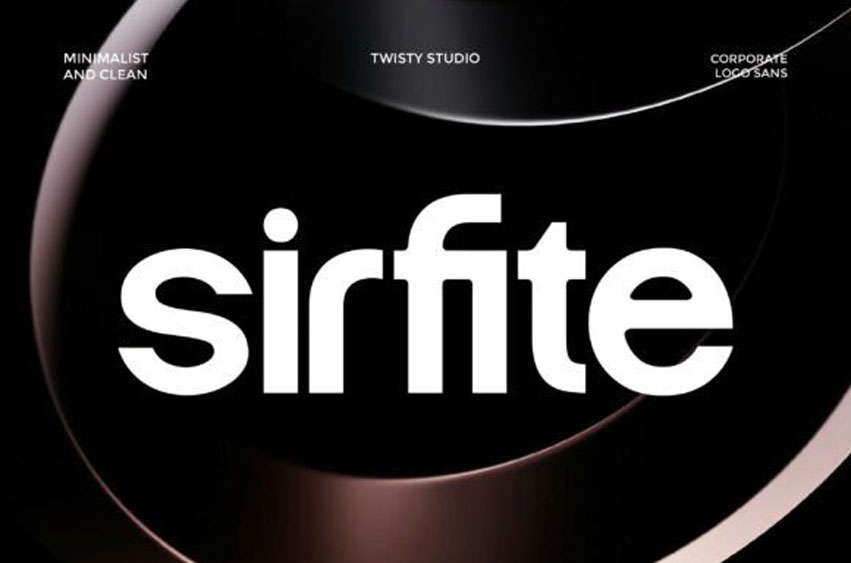
Sirfite Font
Sirfite Font is a modern corporate sans serif typeface designed to deliver professionalism, clarity, and a clean contemporary appearance. Featuring balanced proportions, smooth letterforms, and a minimalist structure, Sirfite creates a sleek and trustworthy visual identity suitable for modern business communication.
Its versatile and highly readable design makes it perfect for corporate branding, presentations, digital interfaces, and professional layouts. Whether for startups, agencies, or established companies, Sirfite brings confidence and sophistication into every project.